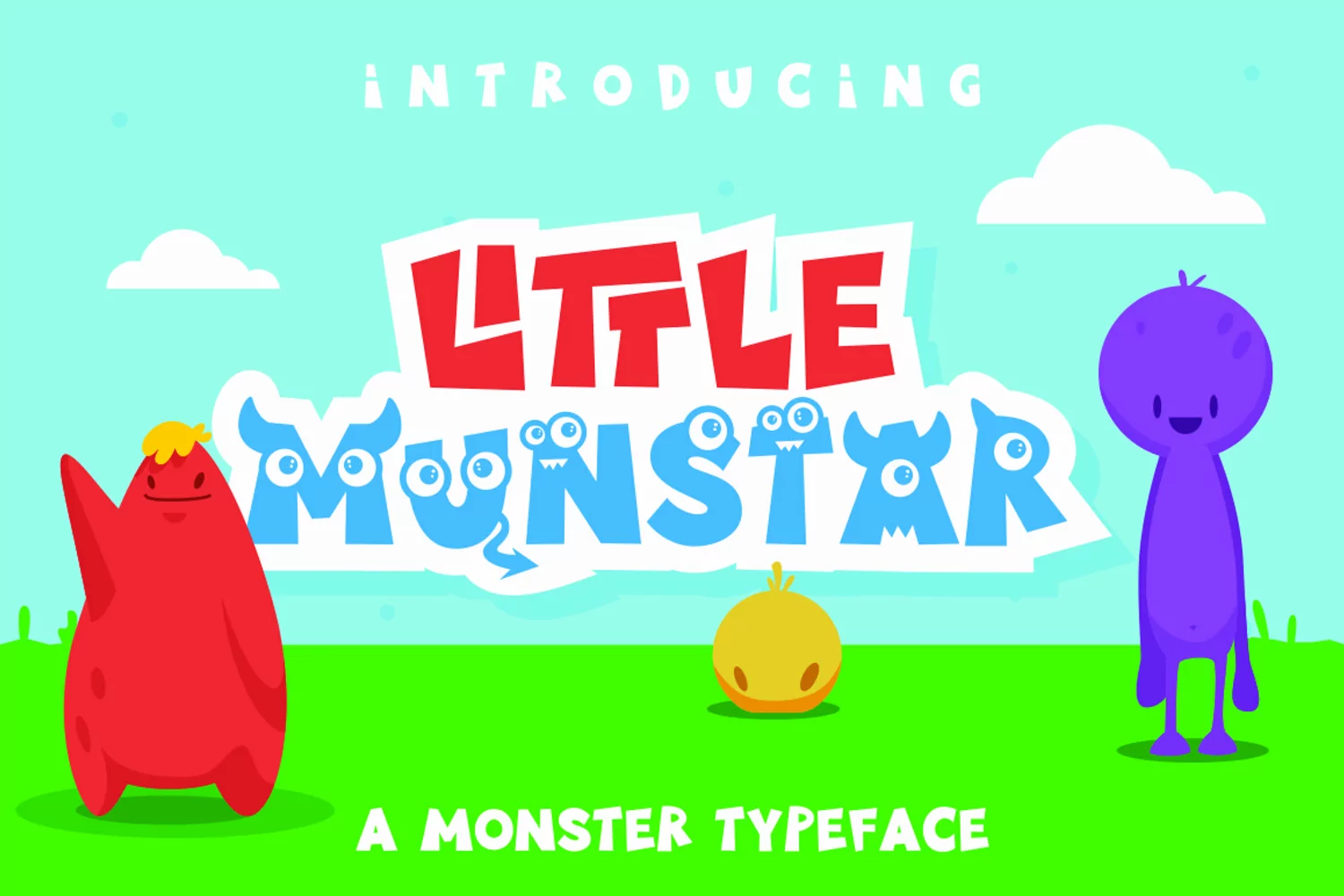
The Little Munster font is a super cute and creative chunky font. This download includes numbers, punctuation and letters with and without monsters to take your lettering needs further. Design monstrously marvelous text with the Little Munster monster font.